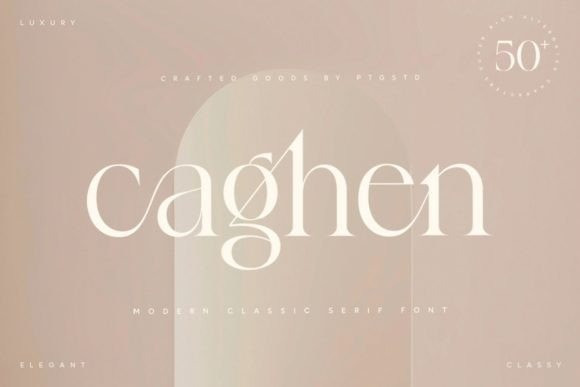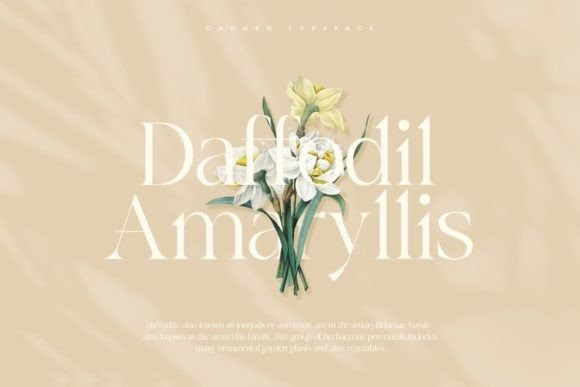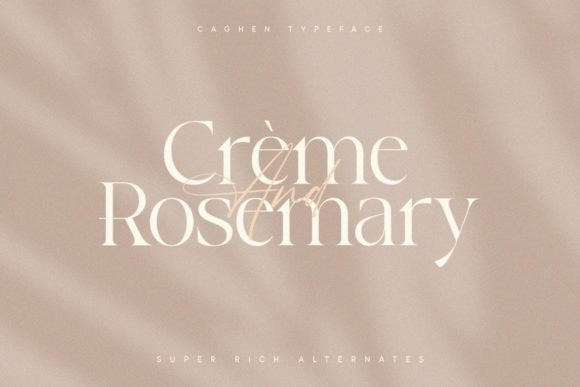
Caghen Font
Caghen is a classy and elegant serif font. It is the best choice for creating eye-catching logos, branding, and quotes. Every letter has a unique and beautiful touch, which will make your design come alive!